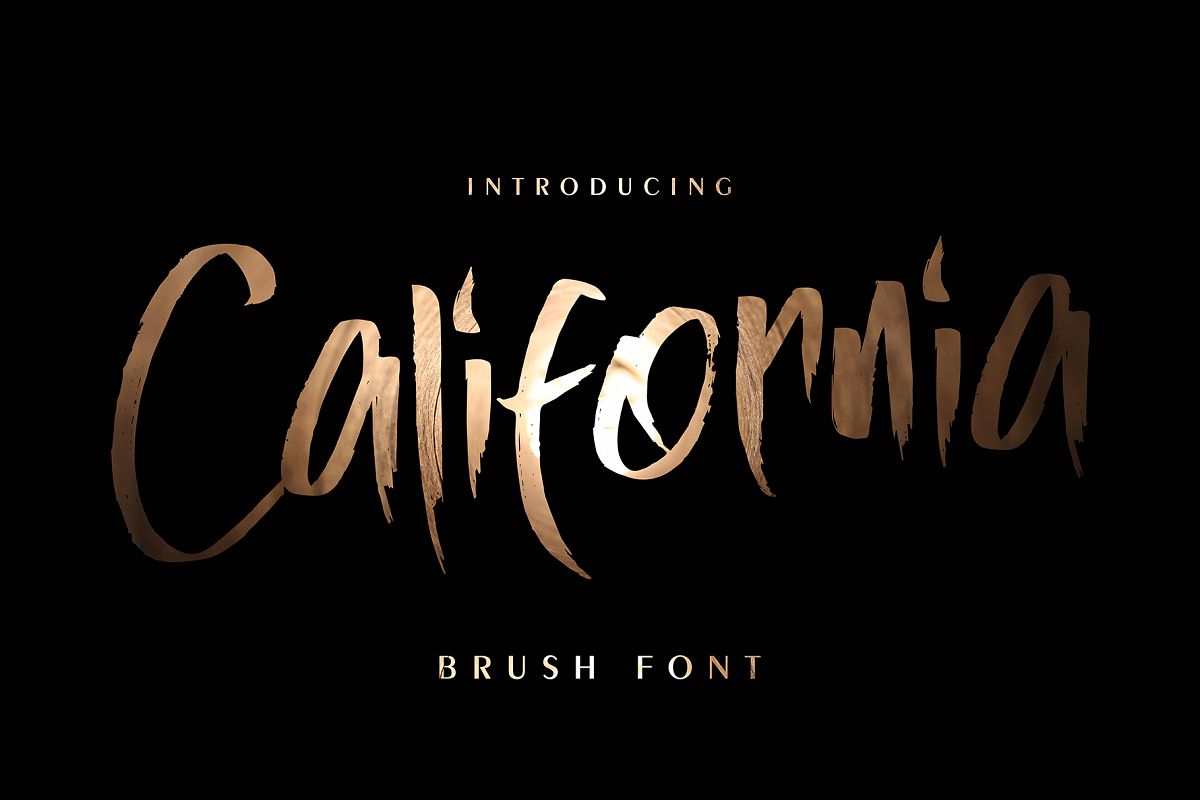
California
California font with new style brush handwritten, this font will perfect for many different project ex: quotes, logo, blog header, poster, banding, fashion, apparel, letter, invitation, stationery, etc...